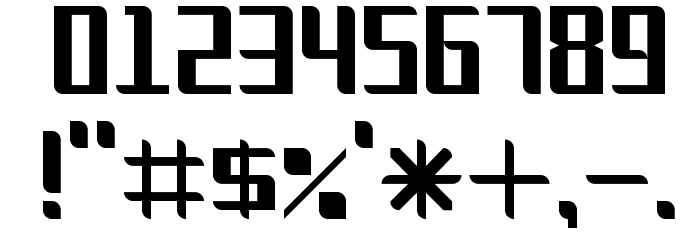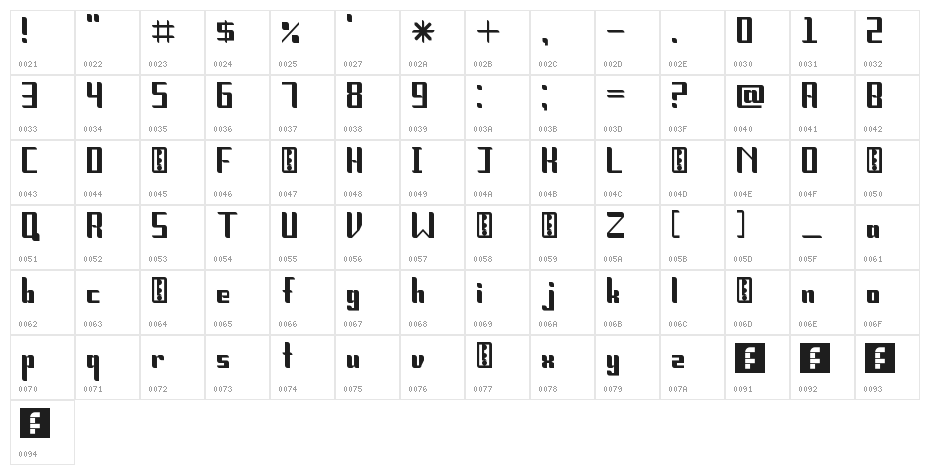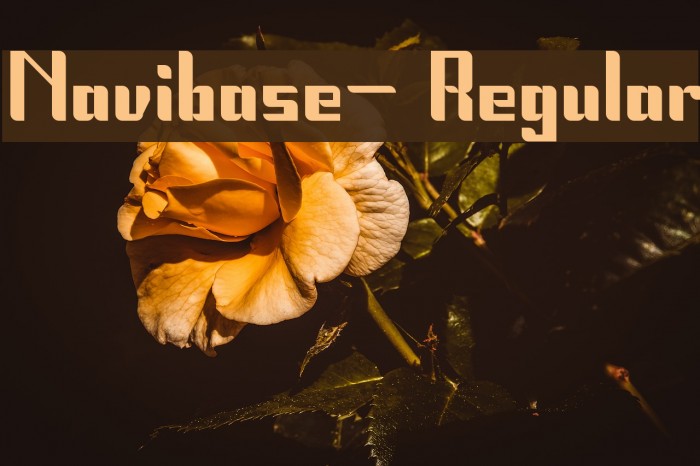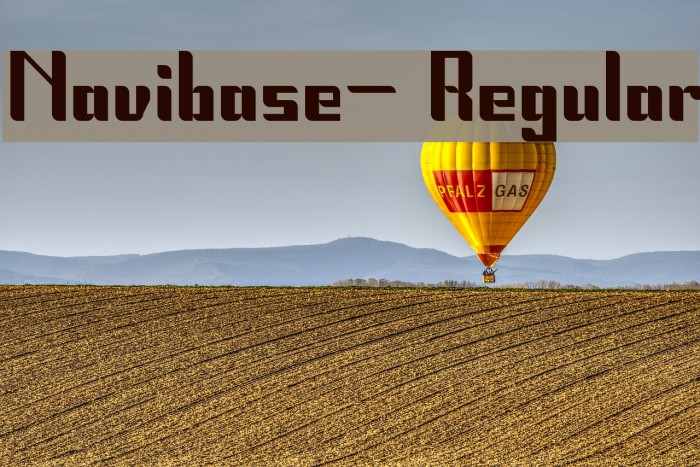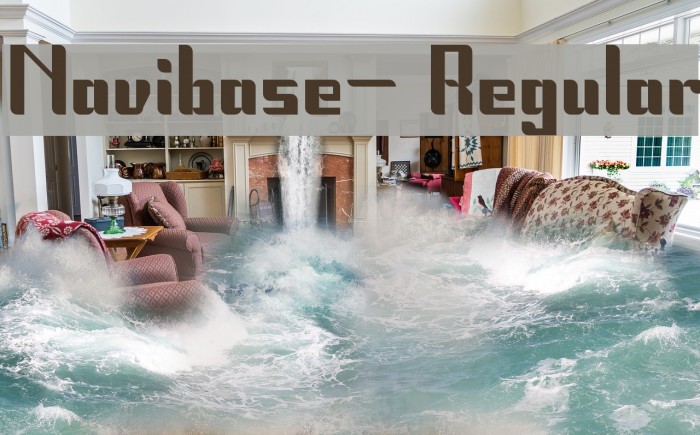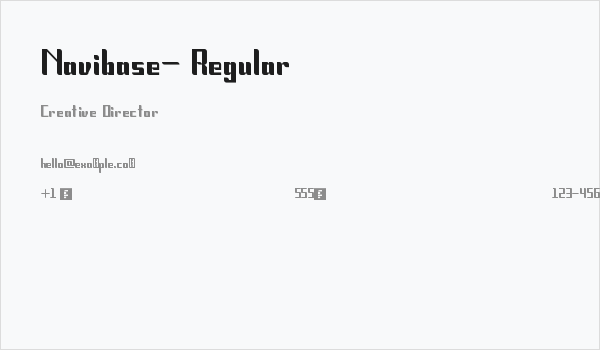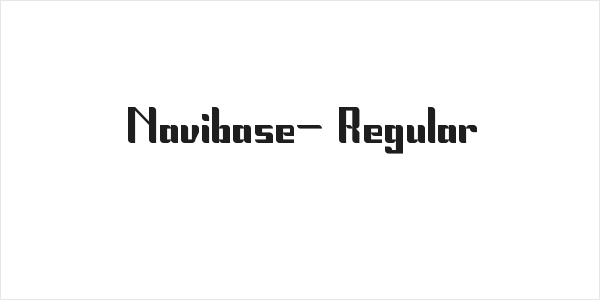
Navibase- Regular Font
Navibase- Regular Description
This font exhibits a bold, geometric style with a unique, futuristic aesthetic. The characters are constructed with thick, uniform strokes and feature a distinct block-like appearance. The uppercase and lowercase letters maintain a consistent height, contributing to a cohesive look. The numbers and special characters are designed to match the boldness and geometric nature of the alphabet, ensuring visual harmony across all glyphs. The font's design is both modern and slightly industrial, making it stand out in any application.
| Proposed Projects | Ideal for technology branding, sci-fi themed projects, video game interfaces, and modern poster designs. |